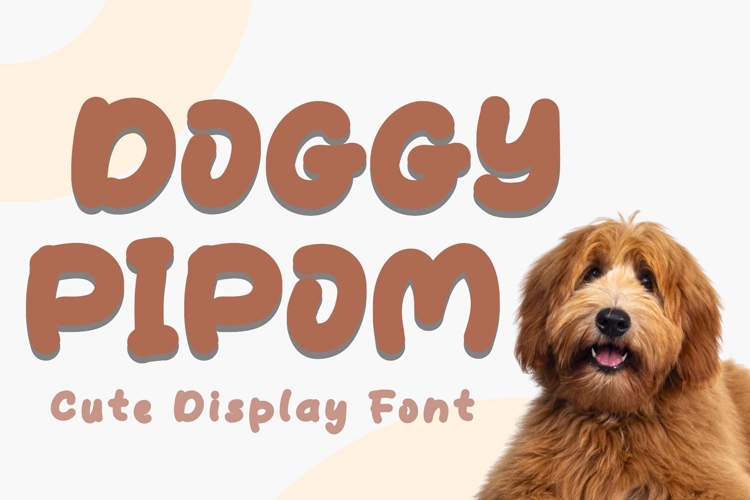
"Doggy Pipom" is a cute and adorable display font. It features uppercase and lowercase letters, numerals, punctuations, and multilingual support. It's perfect for comics, pets, funny movies, animations, posters, banners, posters, branding, stickers, Christmas, Halloween, winter, birthday, party, autumn, fall, spring, summer, holidays, and more.